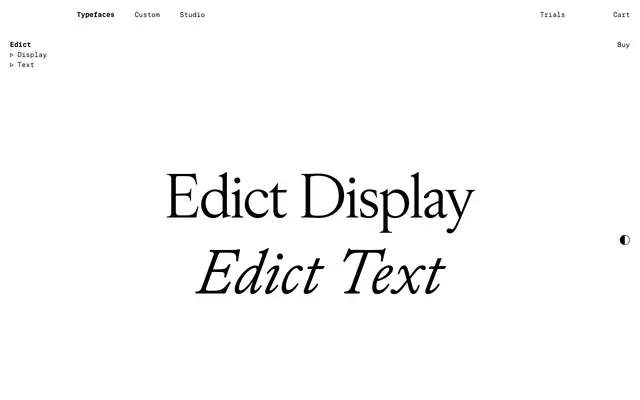
Edict
Edict specimen from Schick Toikka
A high-contrast French Garalde with sharp serifs, swelling teardrop terminals and full swash italic, in Display and Text optical sizes plus a variable font.
Edict is an original interpretation of late Renaissance and early Baroque French type rather than a revival of any single source. Its closest prototype is Jean Jannon, whose work in turn underpinned several of the 20th-century Garamonds, and Edict shows the higher contrast and unevenly inclined axis that mark Transitional type. At its heart is the syncopation of sharp serifs and swelling teardrop terminals, with all outer corners ever so slightly rounded for a radiant warmth. The italic is animated but optimised for tight present-day fit and offers full swash capitals and lowercase terminal forms; small caps are included for advanced typesetting. Edict is available in Display and Text styles, each with five static weights (Text adds an extra Book weight), and a variable font with weight and optical size axes.
Schick Toikka describe Edict as an original interpretation of late Renaissance and early Baroque French type rather than an academic revival; the principal prototype cited is Jean Jannon, whose work was the actual basis for several of the 20th-century Garamonds. Edict shows higher contrast and a contrast axis that is not evenly inclined, characteristics of so-called Transitional type.